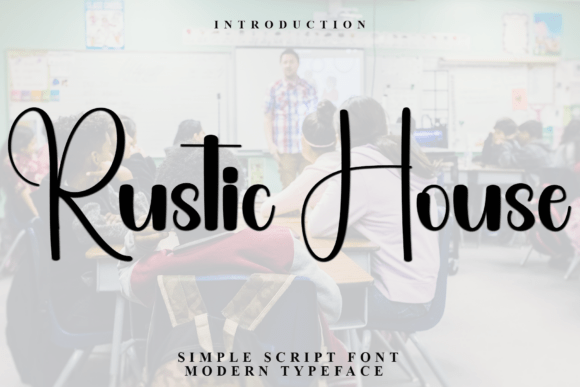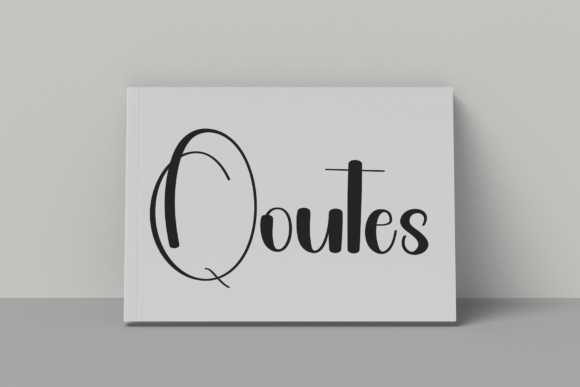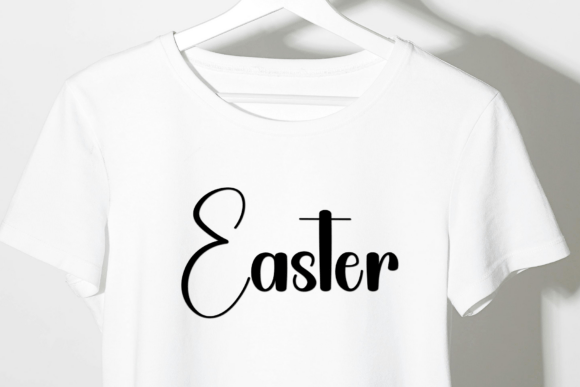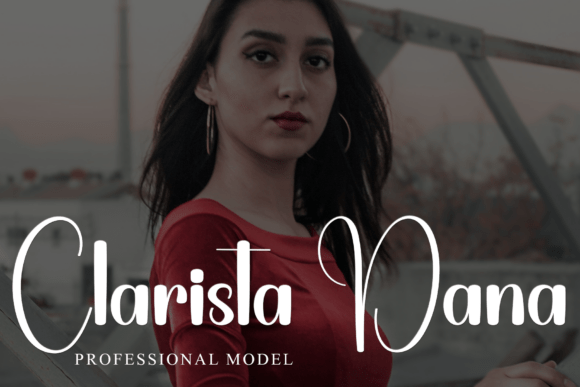
Rustic House Font: Elegant Handwritten Script for DIY & Branding
About the Rustic House Font
Elevate your designs with Rustic House Font, a font that combines sophistication with readability. Rustic House is a flowing handwritten font, described by an elegant touch, perfect for your favorite projects. Fall in love with its incredibly distinct and timeless style and use it to create spectacular designs!
Rustic House excels in applications requiring a touch of handcrafted charm. It’s ideally suited for headlines, short-form text on packaging, invitations, or branding elements where its elegant, flowing style adds a personal touch. Avoid using it for large blocks of body text or UI elements; its cursive nature hinders readability in extended passages.
Its personality is sophisticated yet approachable, conveying a sense of warmth and authenticity. Brands focusing on artisanal goods, boutique businesses, or vintage aesthetics will find it particularly effective.
Rustic House Font Usage Examples
Rustic House Font Example